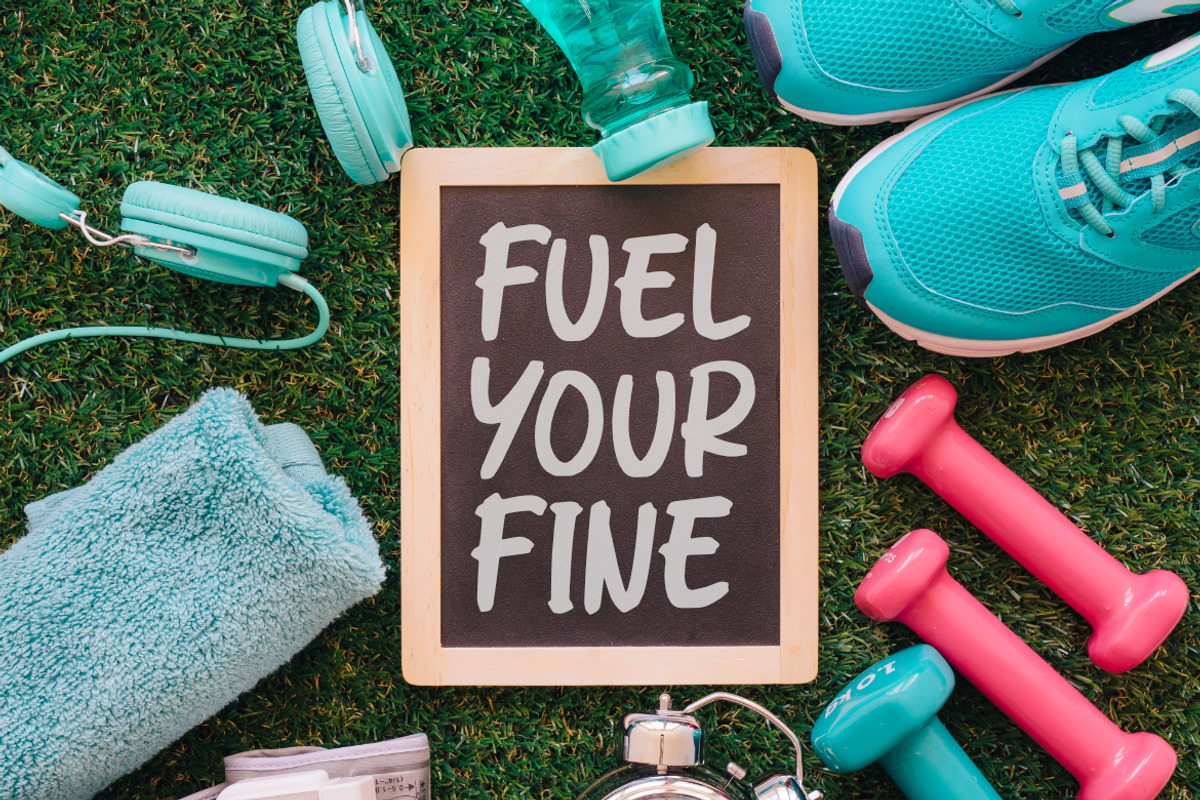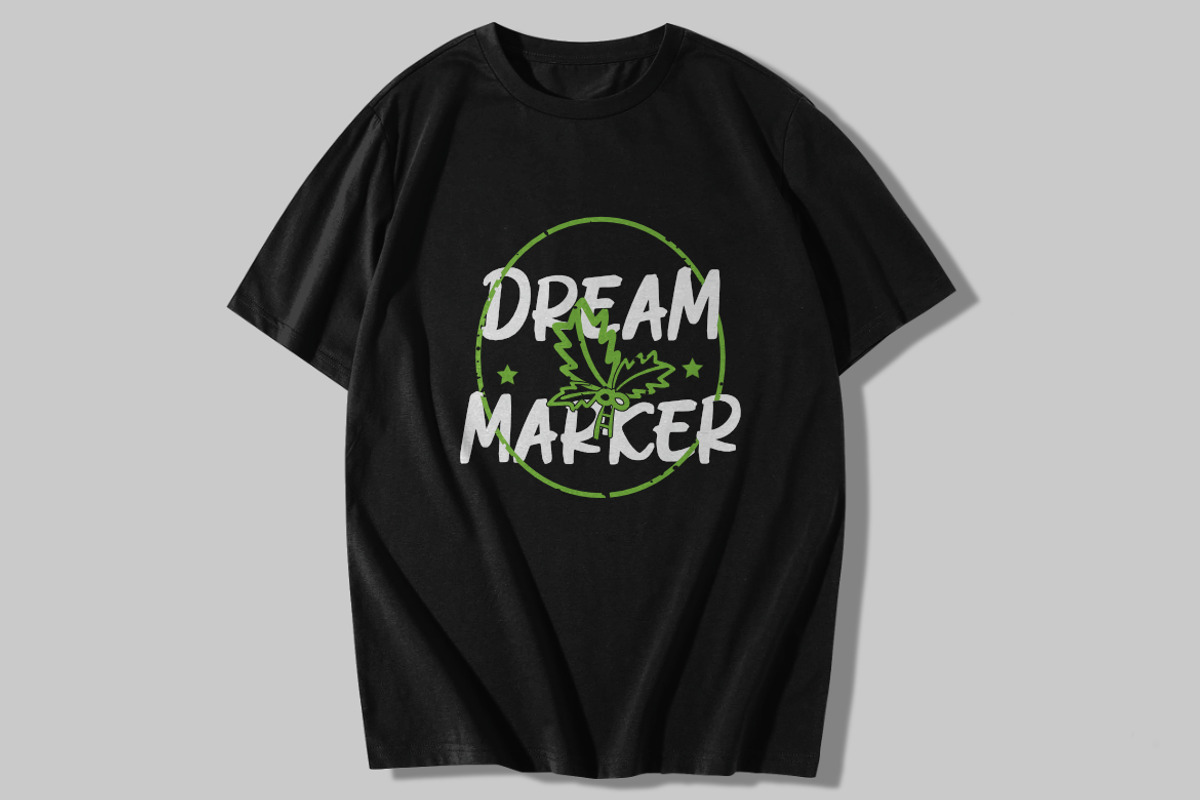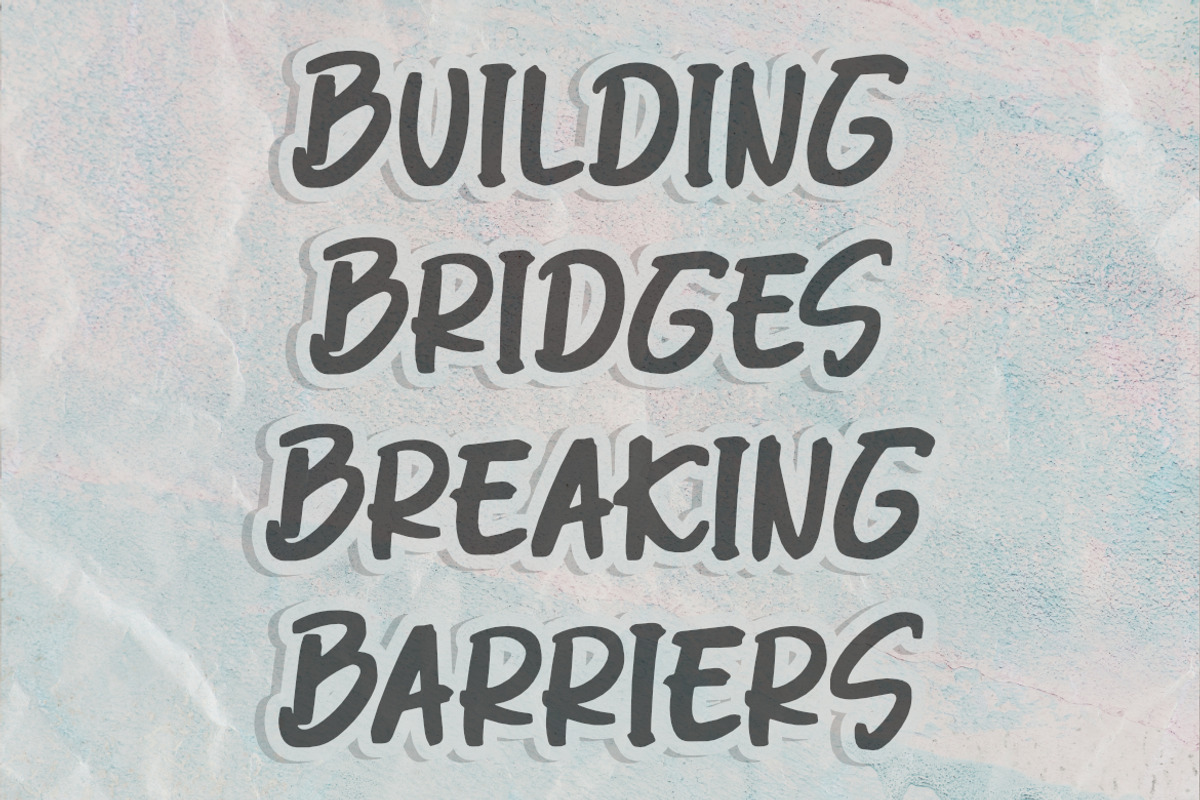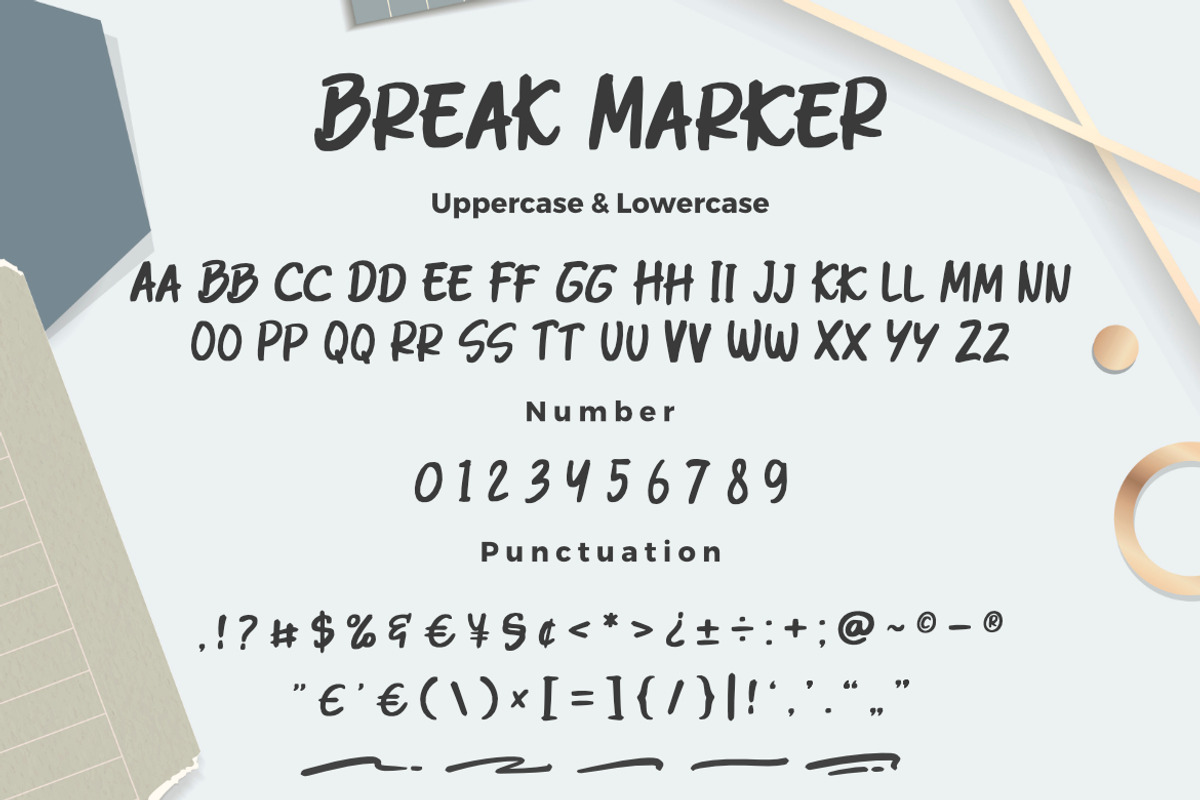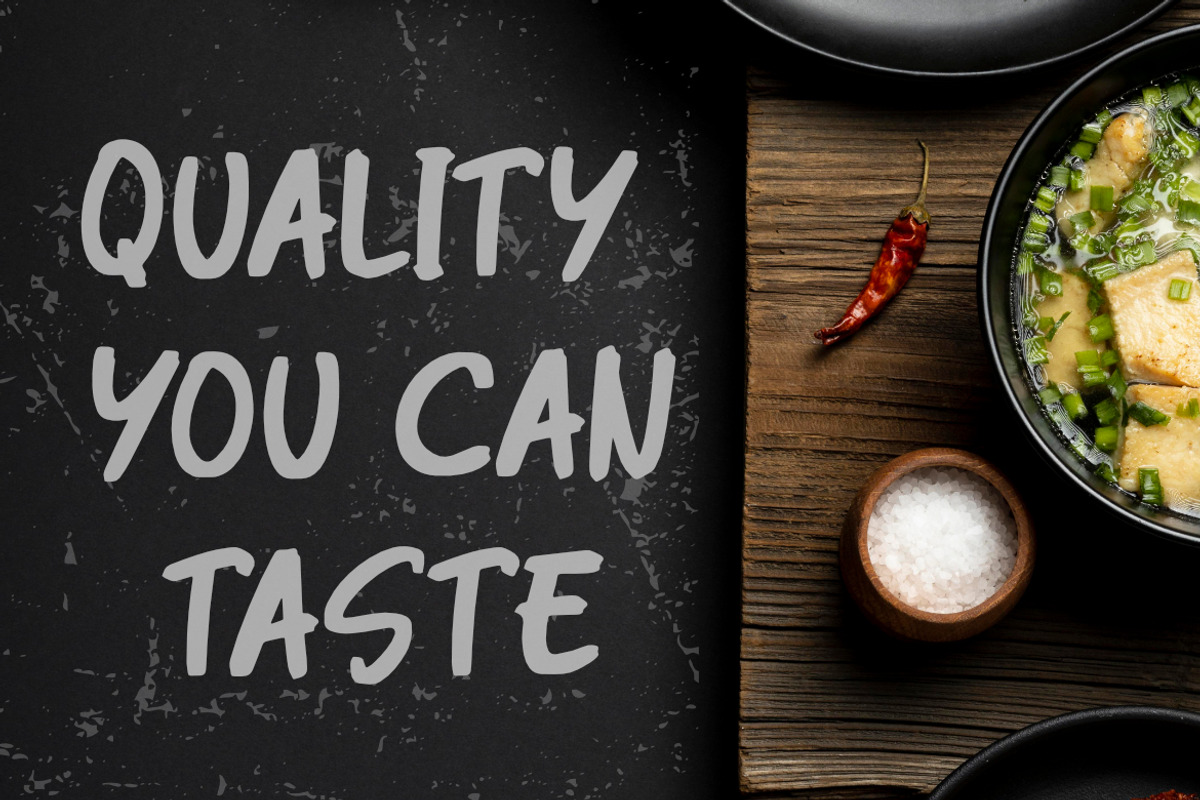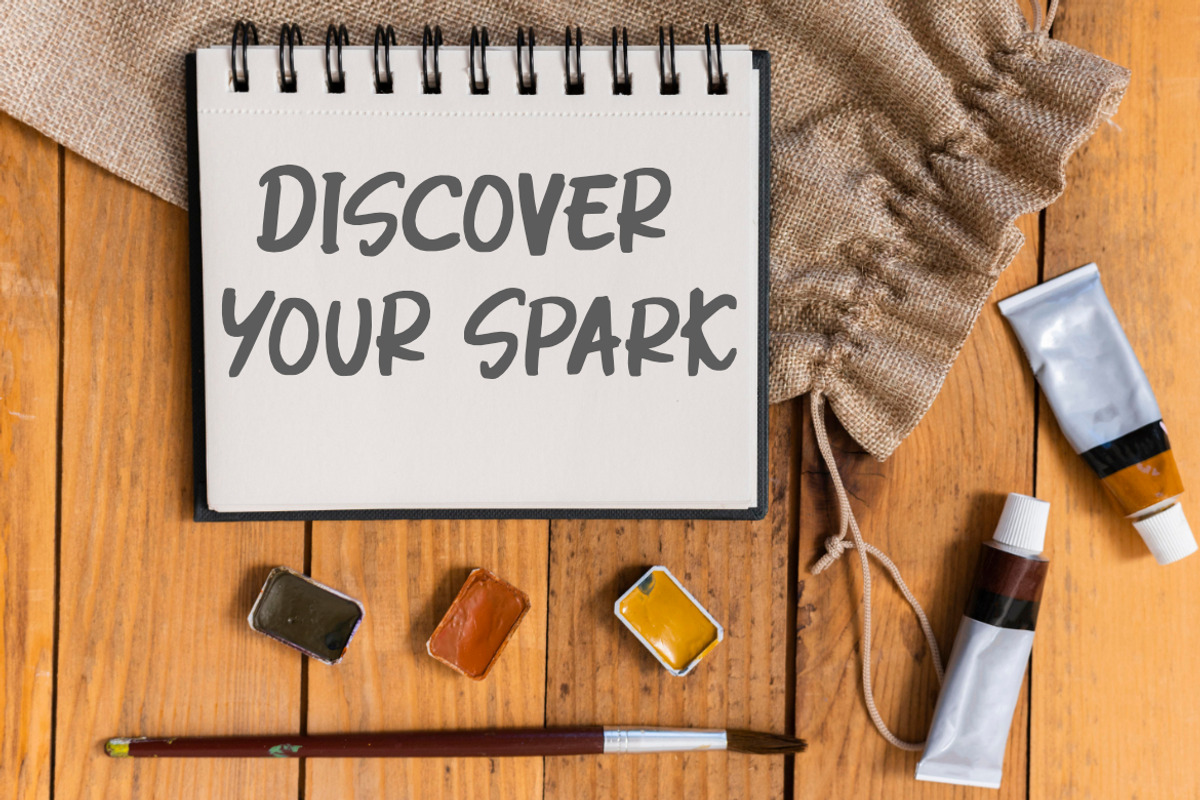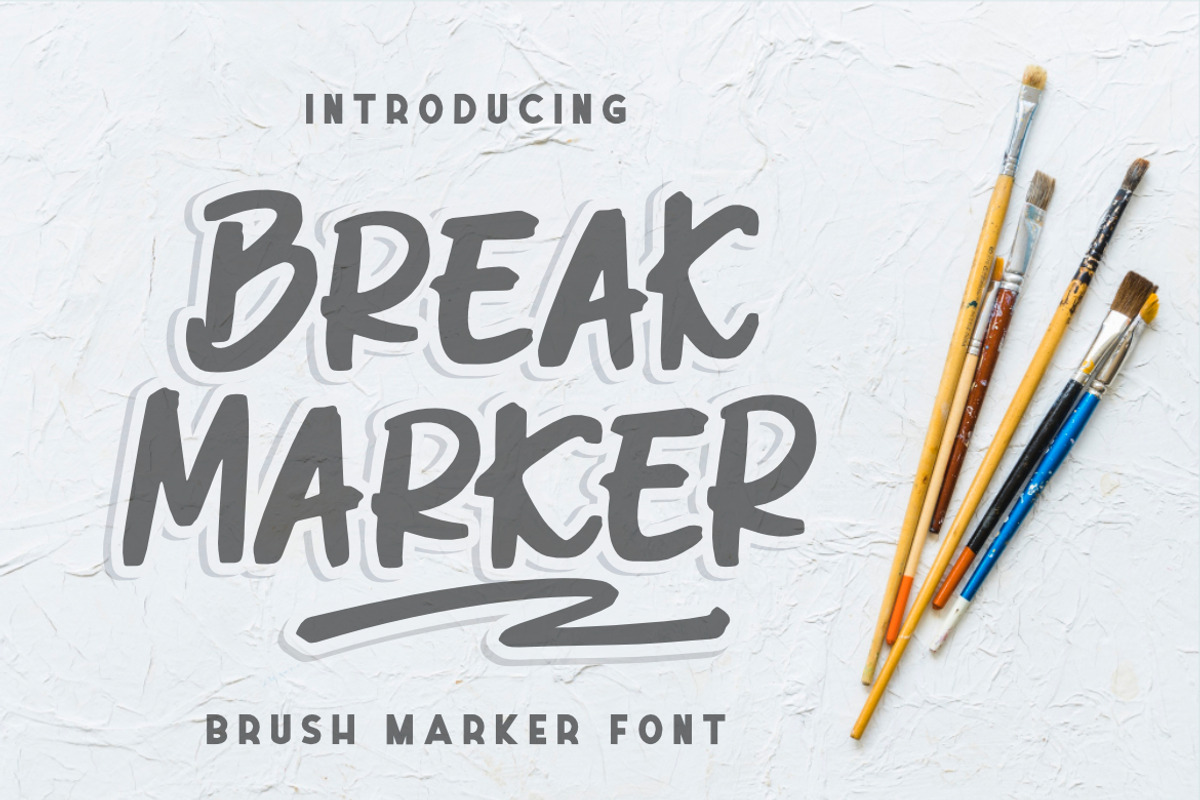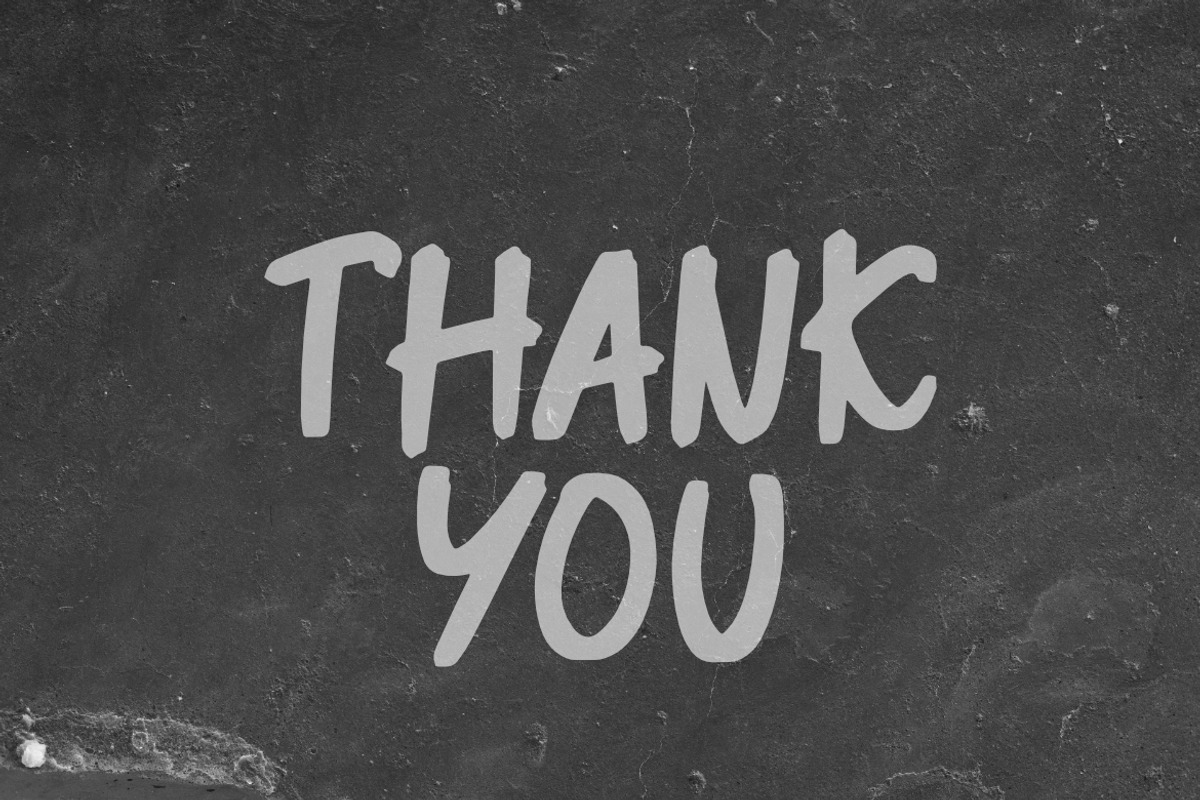
Break Marker Brush Font
Break Marker - Brush Marker Font, This font is made with a high premium quality level which you can use as flyers, quotes, posters, banners, packaging, merchandise, logotypes and much more.